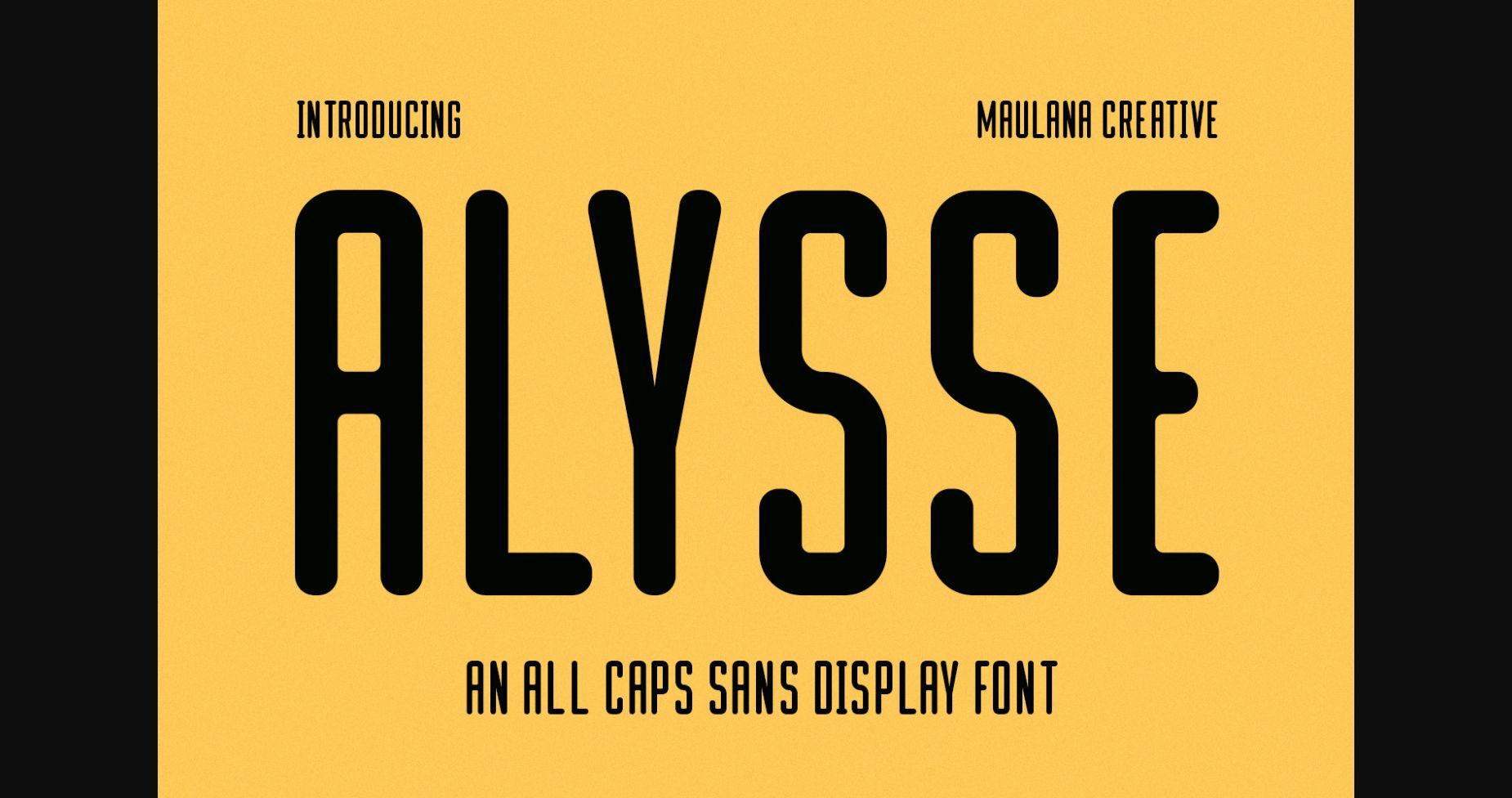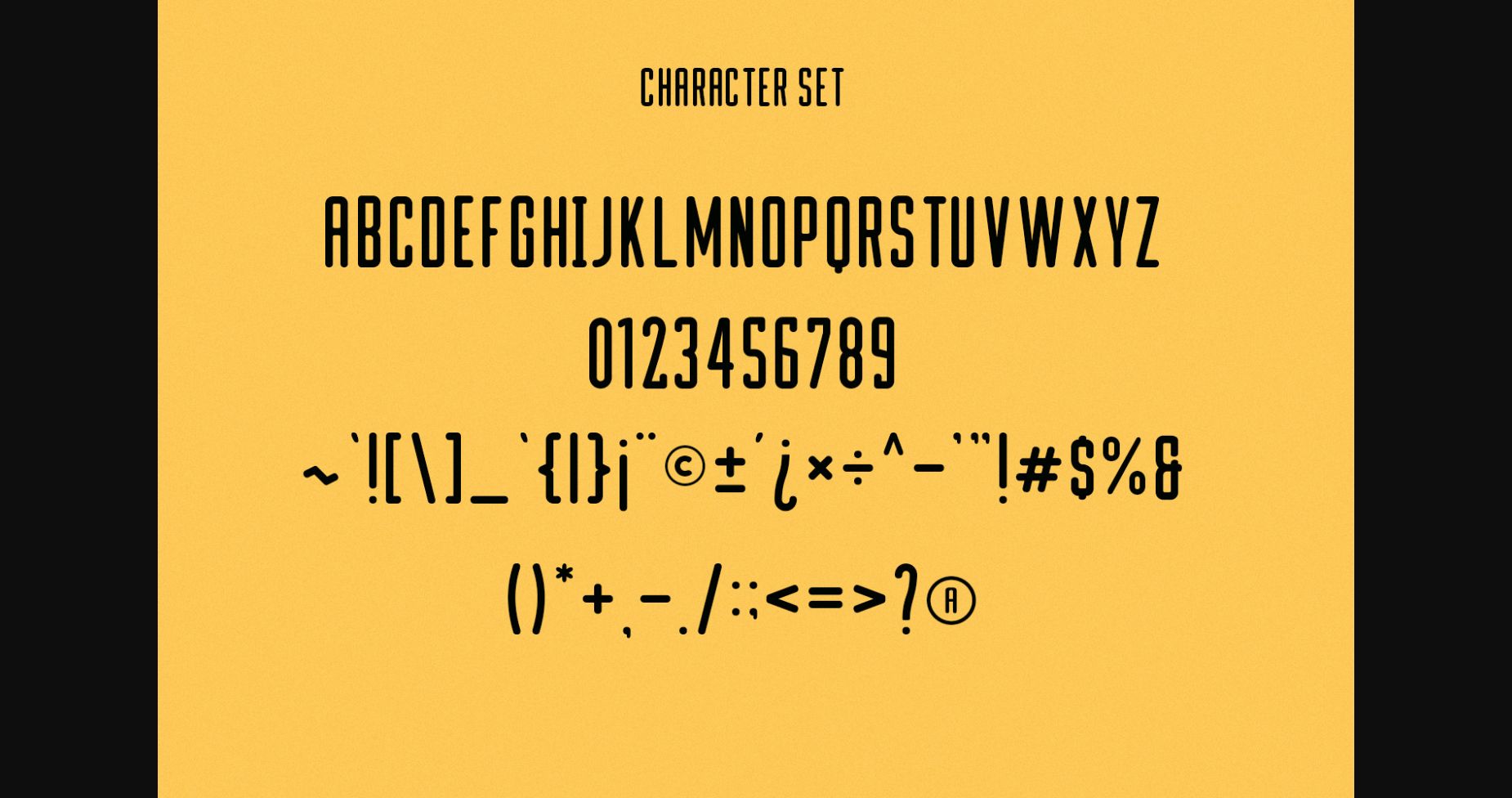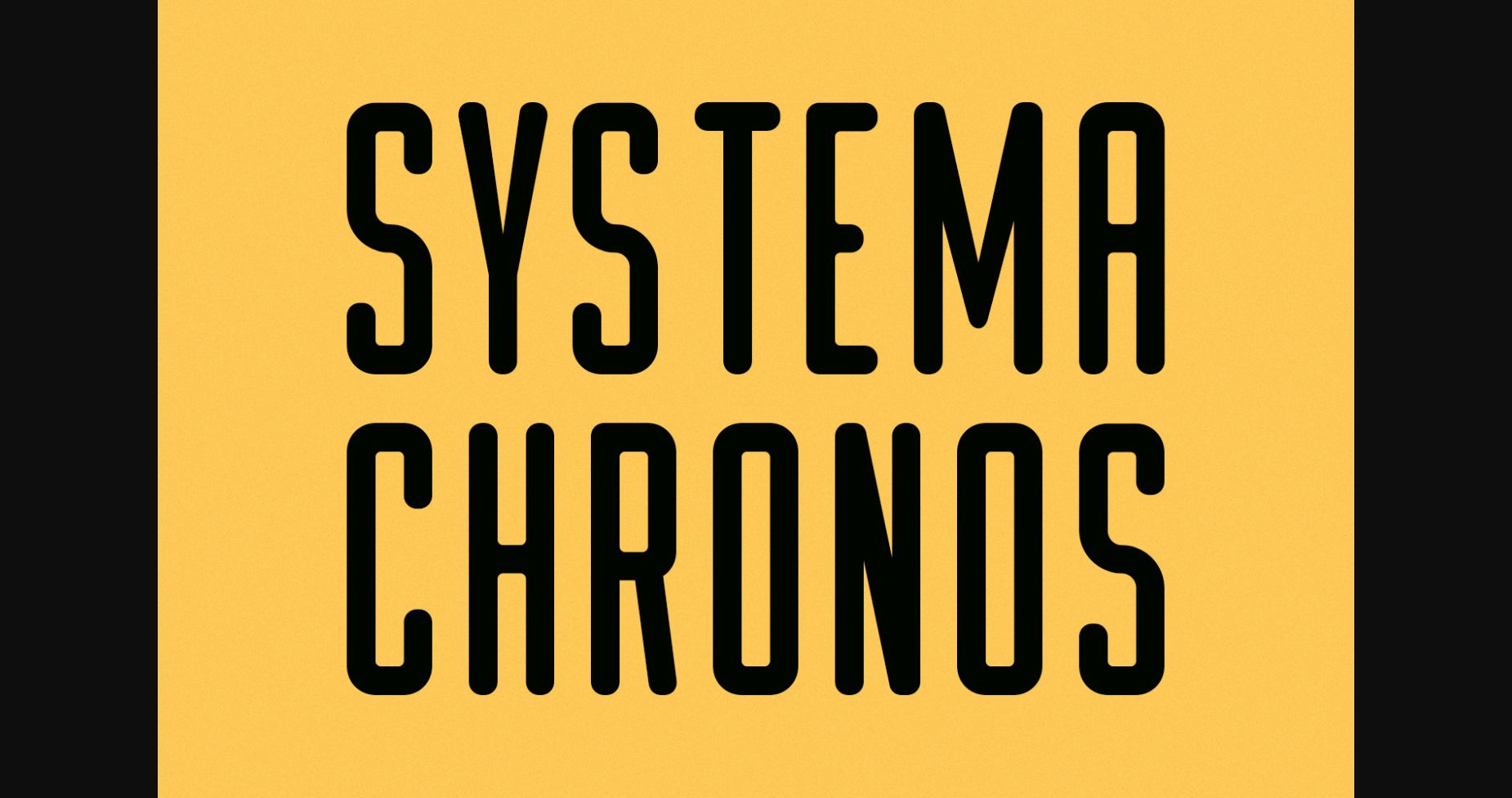
About Alysse Font
Alysse is a tech industrial genre sans serif font featuring a regular condensed stroke, a fun character with a bit of ligature, and alternates to give you extra creative work. Alysse is good for logo design, social media, movie titles, book titles, short text, and long text and good for your secondary text combined with sans or serif. Make stunning work with the Alysse font!